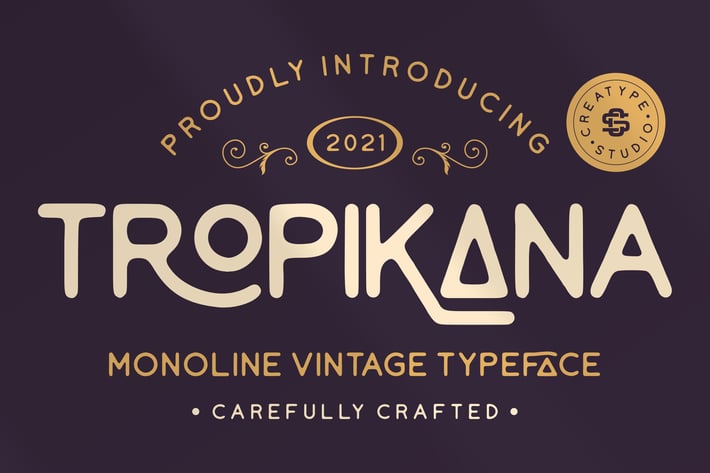
Tropikana Monoline Vintage Typeface
Tropikana is vintage monoline font with various alternate and ligature which perfect for your retro project.
Tropikana is perfect for branding projects, logo, wedding designs, social media posts, advertisements, product packaging, product designs, label, photography, watermark, invitation, stationery and any projects that need handwriting taste.
Ton of glyphs
Ligature & Alternate